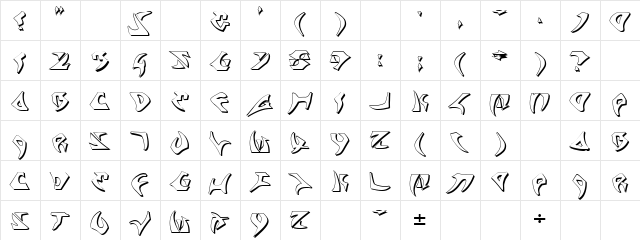
Complete Kahless Shadow glyph index. Displaying only characters natively supported by Kahless Shadow font.
Kahless is built around its visual character rather than neutral utility - its distinctive forms are designed to make an impression at display sizes.
Font Pairing: Pair with a clean neutral sans-serif for body copy to let Kahless's character lead without overwhelming the composition.
Pro Tip: Use Kahless exclusively at display sizes - it was designed to be seen, not read at length. Let a neutral companion handle body copy.